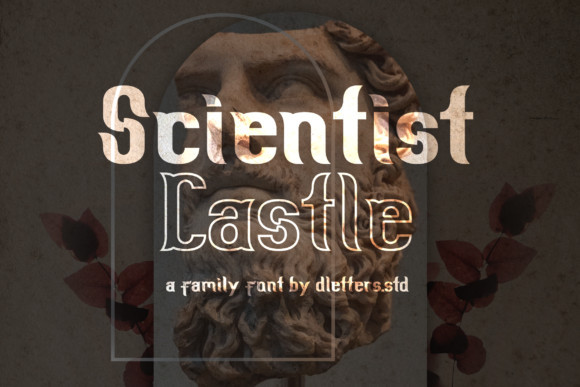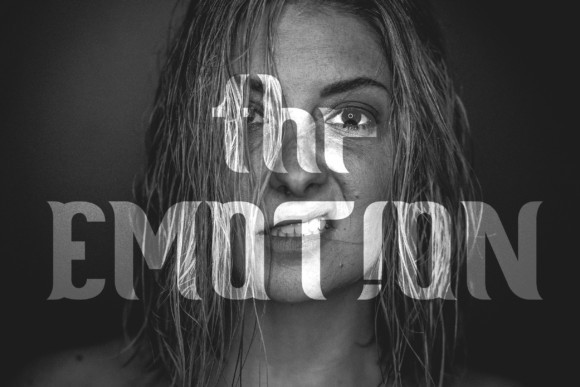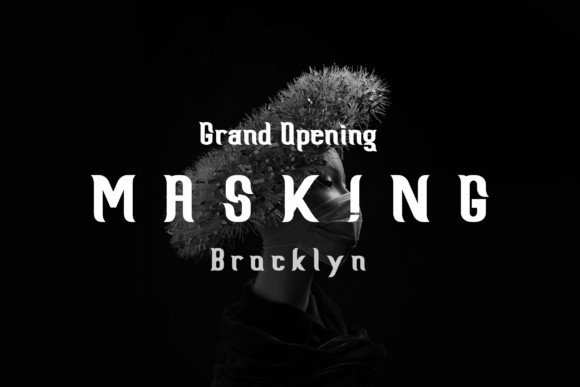
Scientist Castle Font
Scientist Castle is a bold, whimsical and cool looking serif font. Add it to each of the creations that require a unique and appealing touch.